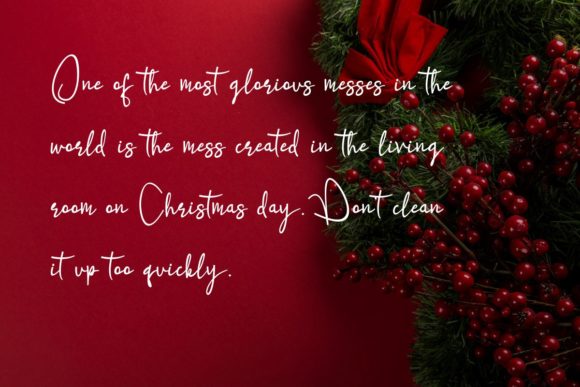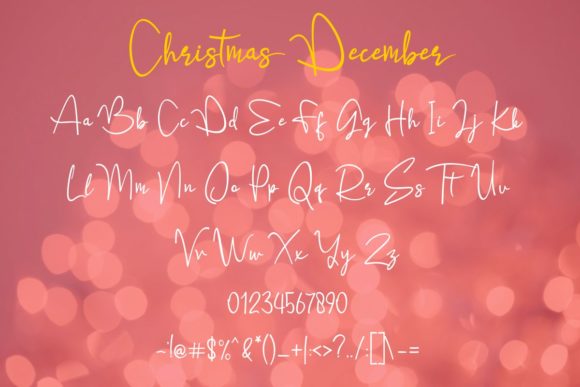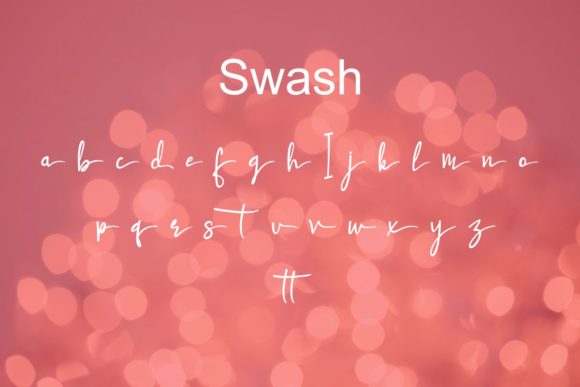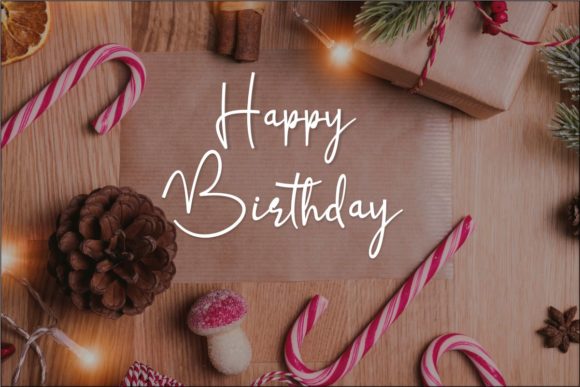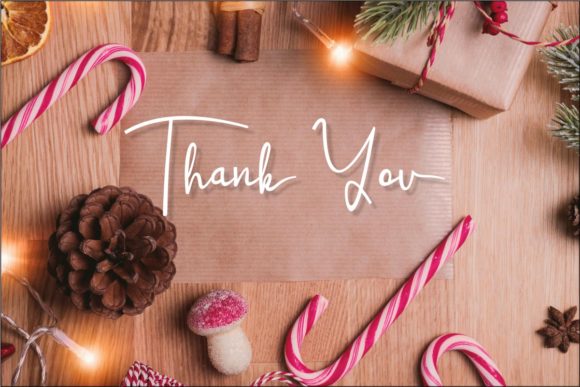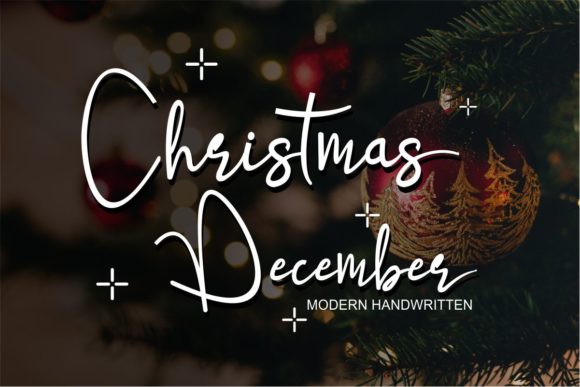
Christmas December Font: A Beautiful Handwritten Font for Your Holiday Projects
Are you looking for a font that captures the essence of the holiday season? Look no further than the Christmas December Font, a beautiful and sweet handwritten font that’s perfect for a wide range of projects. In this article, we’ll take a closer look at this stunning font and explore its features, uses, and benefits.
What is Christmas December Font?
Christmas December Font is a modern, handwritten font that’s designed to evoke the feeling of the holiday season. With its fresh and modern look, this font is perfect for designers and crafters who want to add a touch of elegance and sophistication to their projects. Whether you’re creating wedding invitations, greeting cards, social media quotes, or branding materials, Christmas December Font is sure to impress.
Key Features of Christmas December Font
- Handwritten style: Christmas December Font has a beautiful, handwritten style that’s perfect for creating personal and intimate designs.
- Fresh and modern look: This font has a fresh and modern look that’s sure to catch the eye of your audience.
- Versatile: Christmas December Font can be used for a wide range of projects, from wedding invitations and greeting cards to social media quotes and branding materials.
- Elegant and sophisticated: This font has an elegant and sophisticated feel that’s perfect for designers and crafters who want to create high-end designs.
Uses of Christmas December Font
Christmas December Font is a versatile font that can be used for a wide range of projects, including:
- Wedding invitations: This font is perfect for creating beautiful and elegant wedding invitations that will set the tone for the big day.
- Greeting cards: Christmas December Font is a great choice for creating holiday greeting cards that are sure to impress your friends and family.
- Social media quotes: This font is perfect for creating inspiring and uplifting social media quotes that will engage your audience.
- Branding materials: Christmas December Font can be used to create elegant and sophisticated branding materials, such as logos, business cards, and letterheads.
Benefits of Using Christmas December Font
There are many benefits to using Christmas December Font, including:
- Unique and eye-catching designs: This font allows you to create unique and eye-catching designs that will stand out from the crowd.
- Elegant and sophisticated feel: Christmas December Font gives your designs an elegant and sophisticated feel that’s perfect for high-end projects.
Tips for Using Christmas December Font
Here are a few tips for using Christmas December Font:
- Use it for headlines and titles: This font is perfect for headlines and titles, where you want to make a bold statement.
- Pair it with other fonts: Christmas December Font can be paired with other fonts to create a unique and interesting design.
- Experiment with different colors: This font looks great in a variety of colors, so don’t be afraid to experiment and find the perfect color for your design.